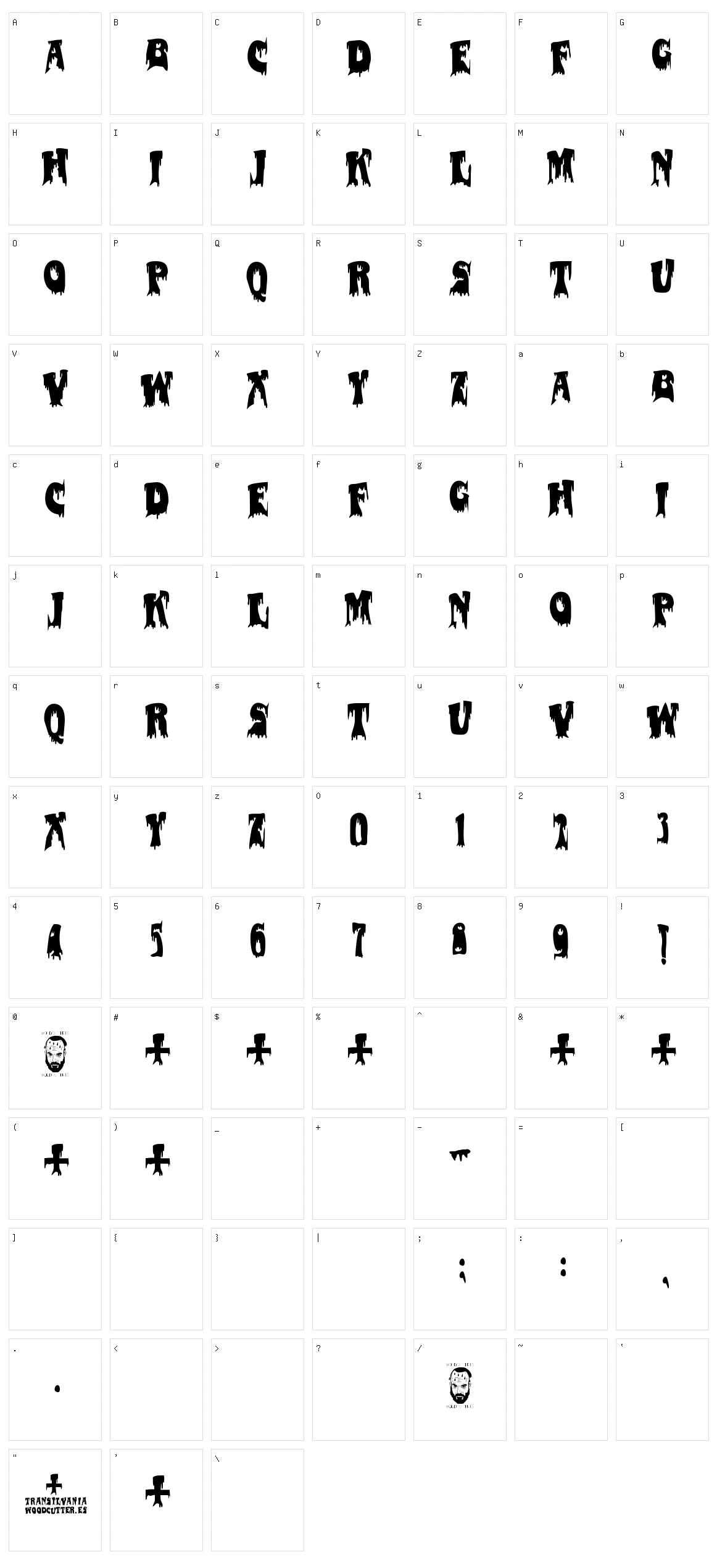
The free font Transilvania is carefully designed by Woodcutter, showcasing a thoughtful balance of creativity and usability and falls under the Horror font style. When you download the ZIP file, it contains only 26.43 KB of font files, making it lightweight and quick to download. Please review the license details below to understand permitted usage and distribution rights. If license information is not available, we recommend using this font for personal projects only or contacting the author directly for commercial usage permissions.